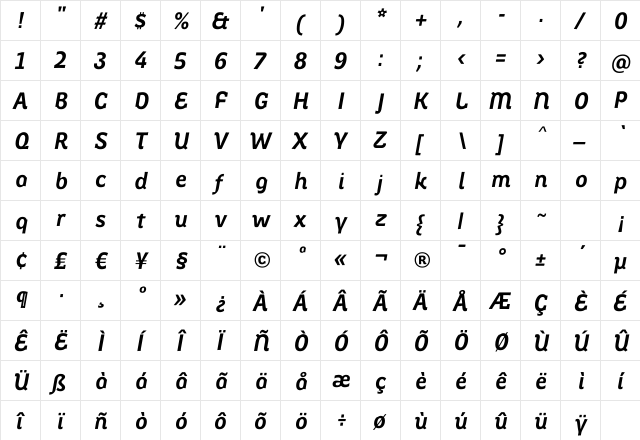
Spotka AlternateBold Italic Regular Font Preview
Design Context for Spotka AlternateBold Italic Typeface
Spotka AlternateBold Italic takes a measured approach to typography — its balanced proportions and neutral character make it a reliable workhorse for both digital and print work. The dynamic lean of this cut emphasises speed and emphasis in any layout. Its bold stroke weight gives it real presence on the page.
Pro Tip: Try Spotka AlternateBold Italic for annotation and caption copy alongside an upright companion — the contrast in angle creates a dynamic but ordered typographic system.